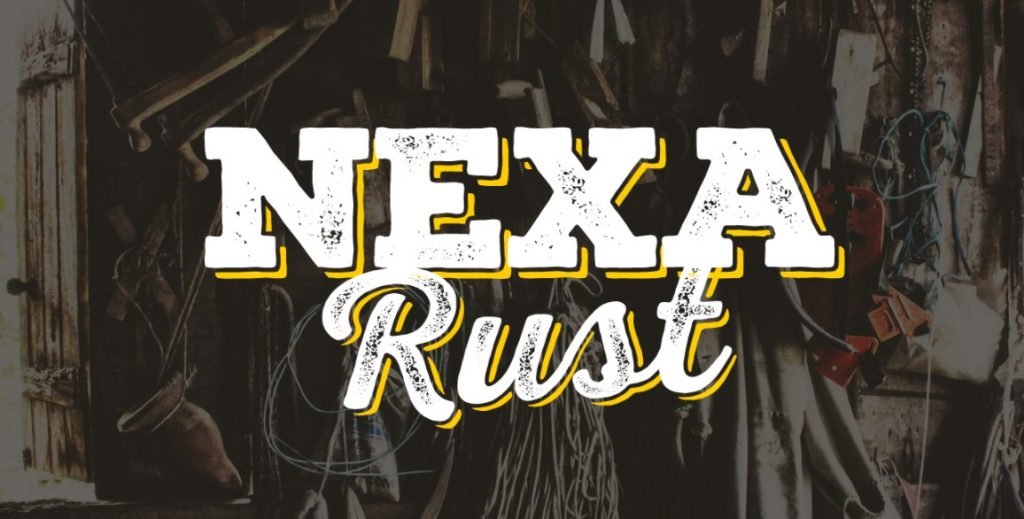
In this post, we are sharing the Nexa Rust Font that is designed by the designers of Fontfabric Type Foundry. This sans book typeface is present here for free download.
This is the multi-faced typeface that contains many different sub-families that are namely Sans, Slab, Script, Handmade, and Extras. Every of the sub-family is a great pair of noir font.
There are a number of weights available in this typeface that have different characteristics that are warm, rough look, and degree of saturation. This is the free typeface.
This typeface is known to be the rough version of the famous font Nexa and Nexa Slab families and they added some of the matching Nexa Script and Nexa Handmade fonts.
Along with all of this, you will also discover added groups of extras that could serve as a foundation or add that extra “cherry on the cake” to each unique design.
Nexa Rust Font is the sans-serif typeface that is designed by the designers of Fontfabric Type Foundry.